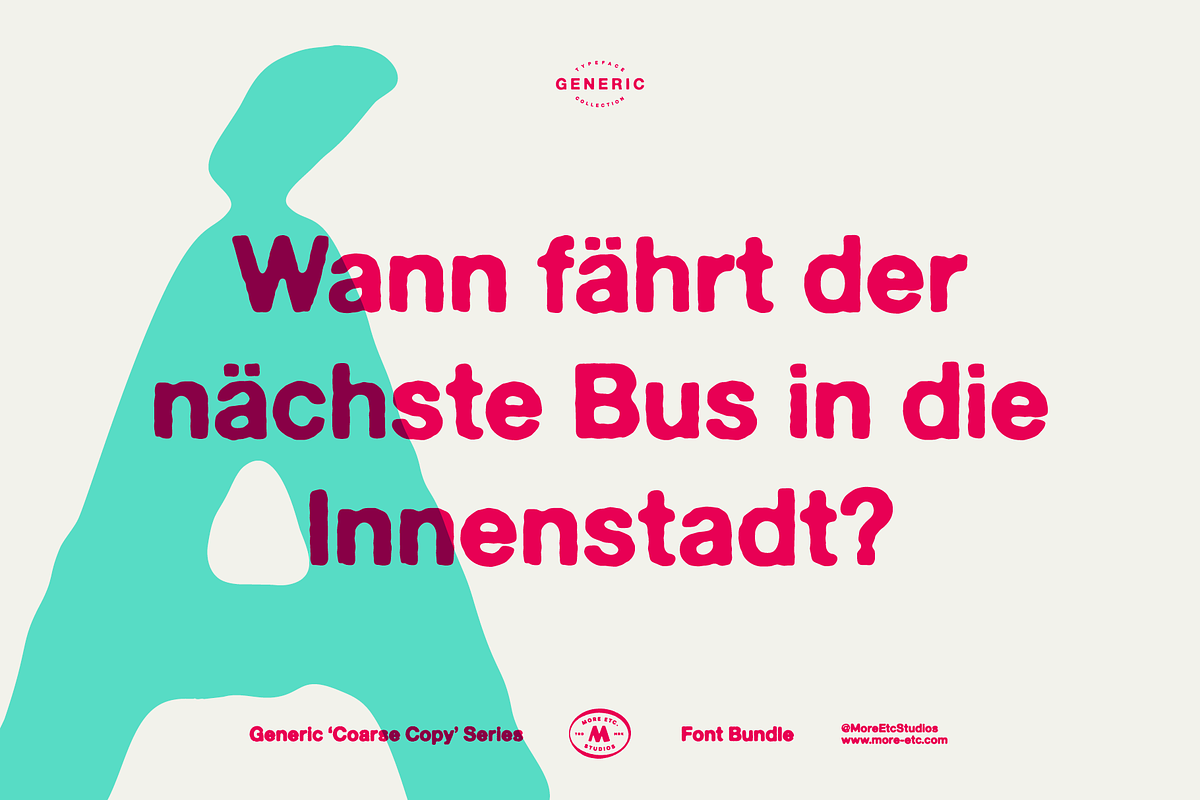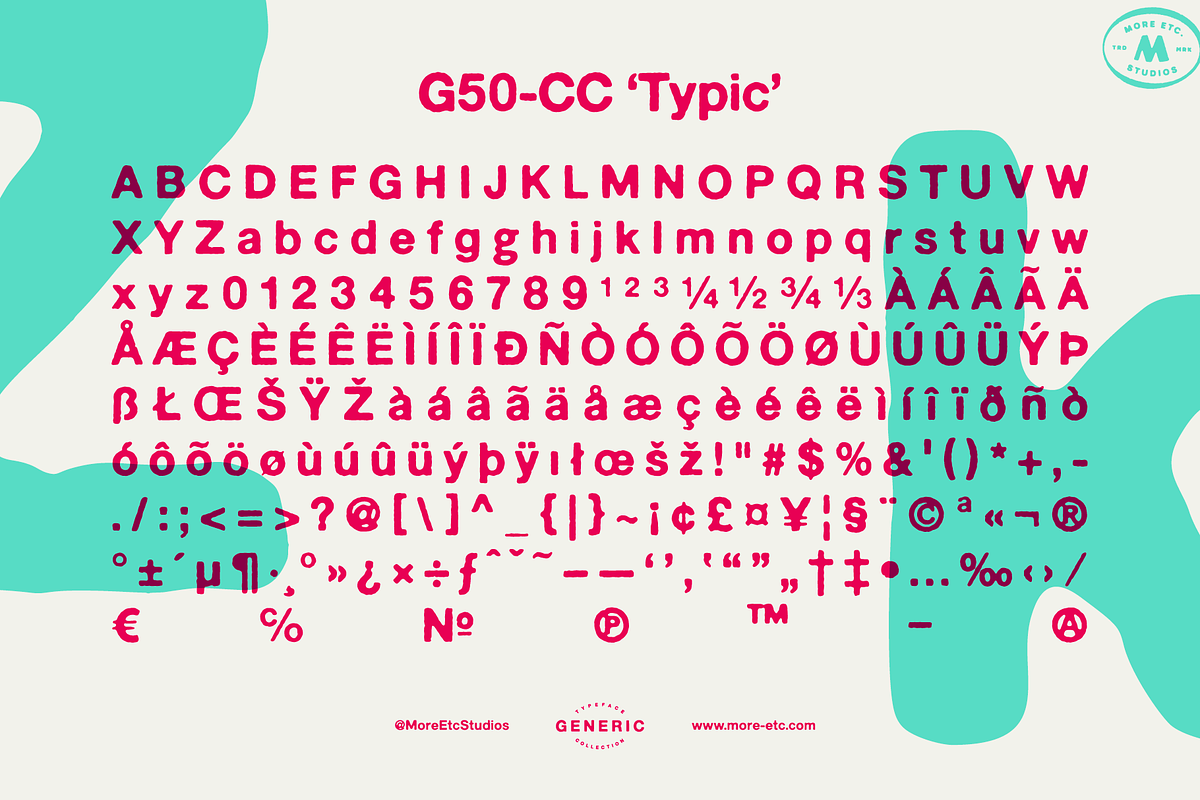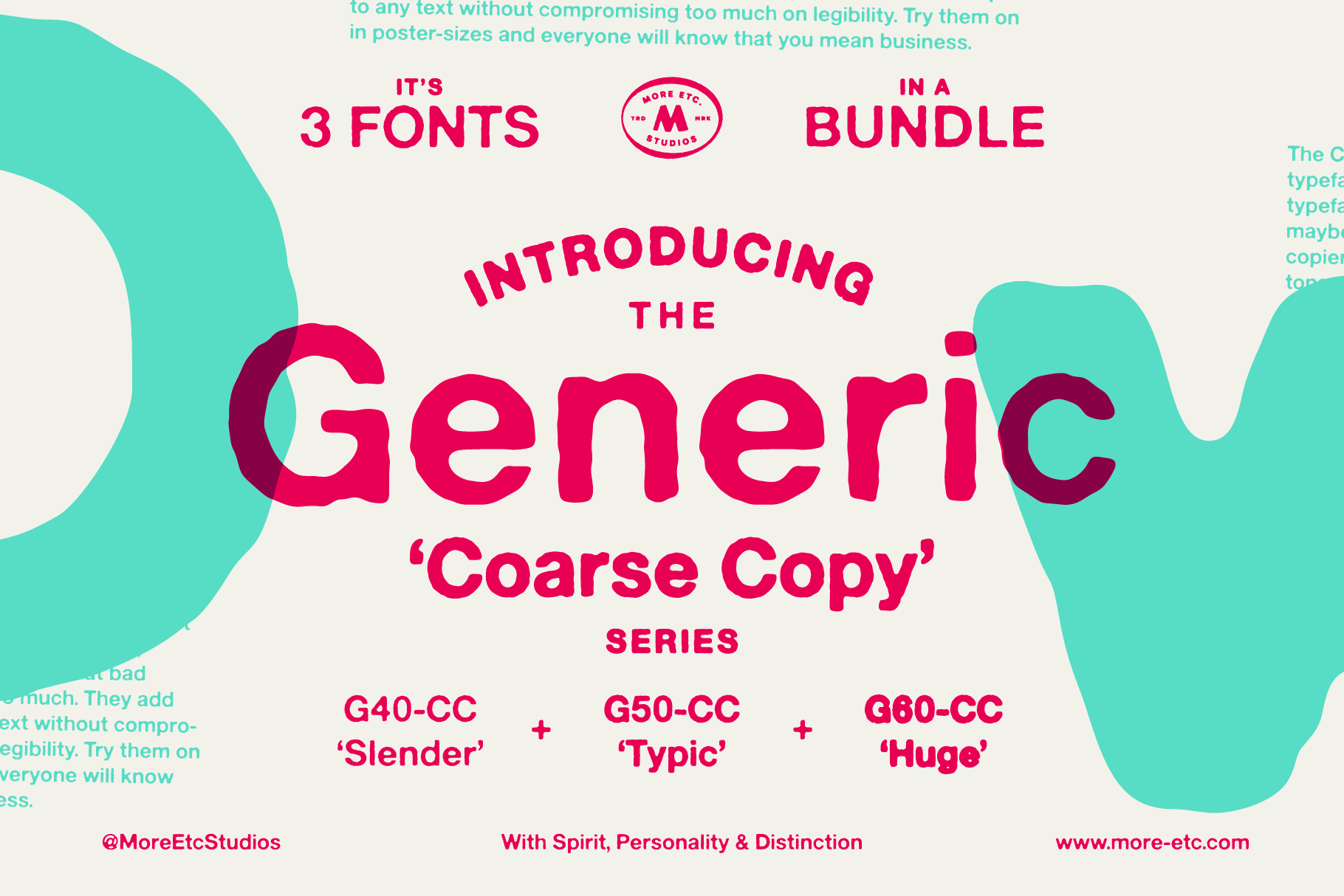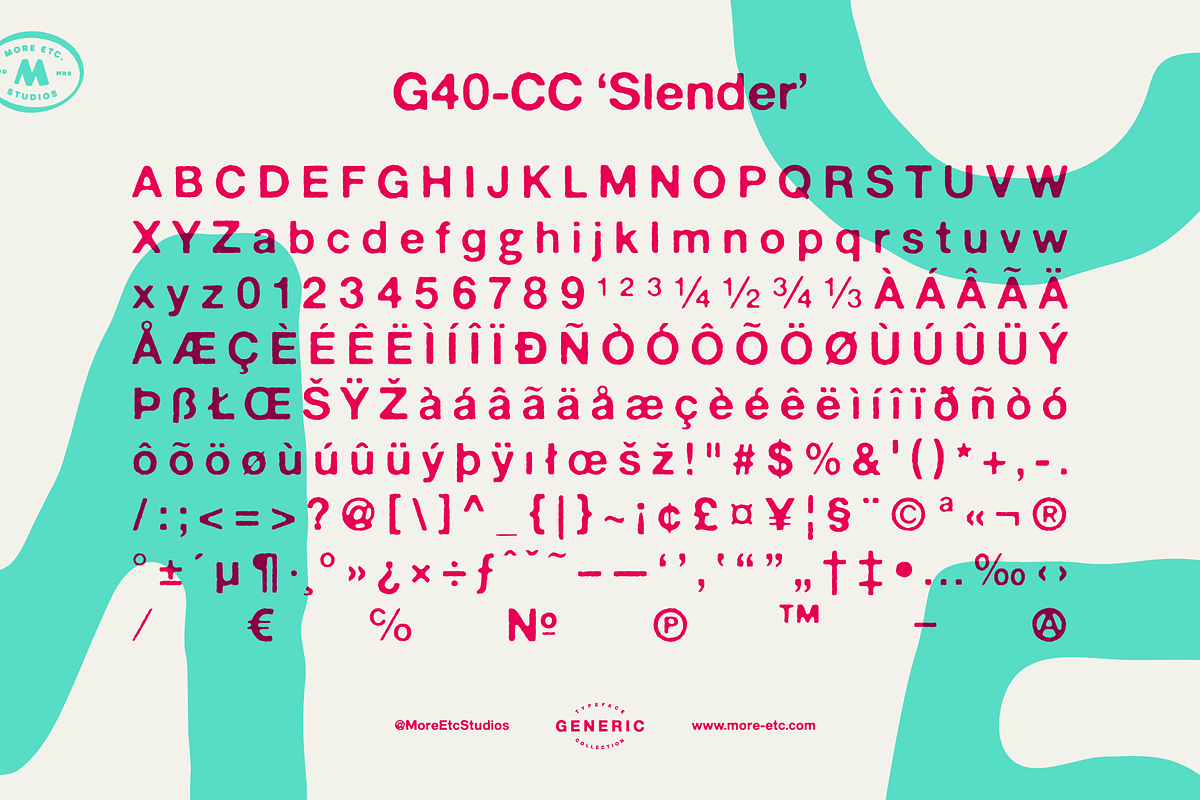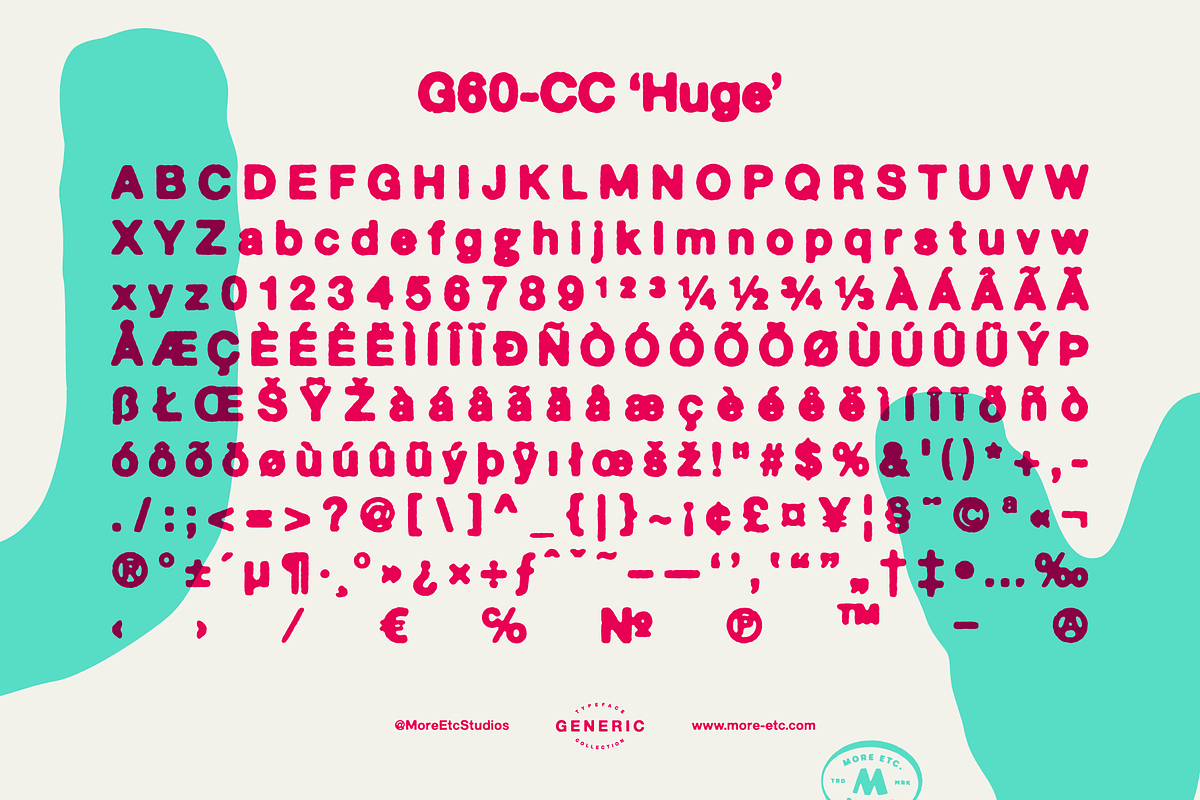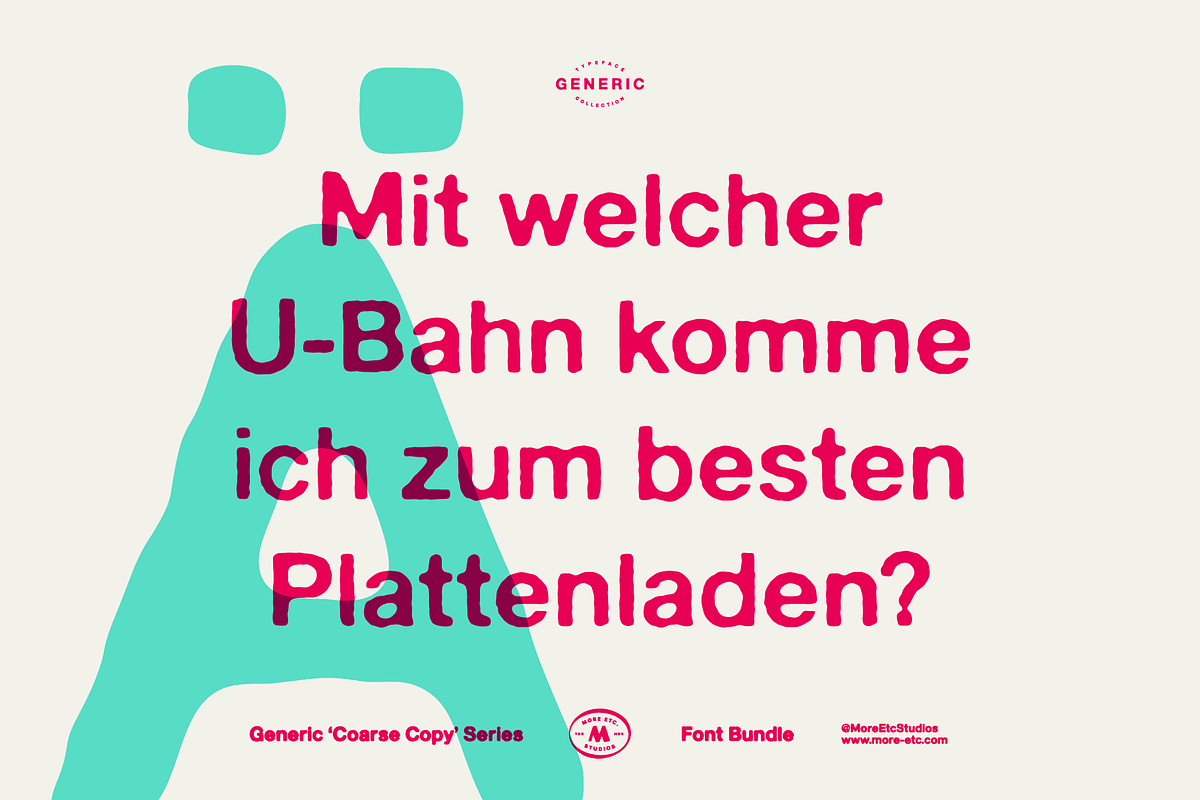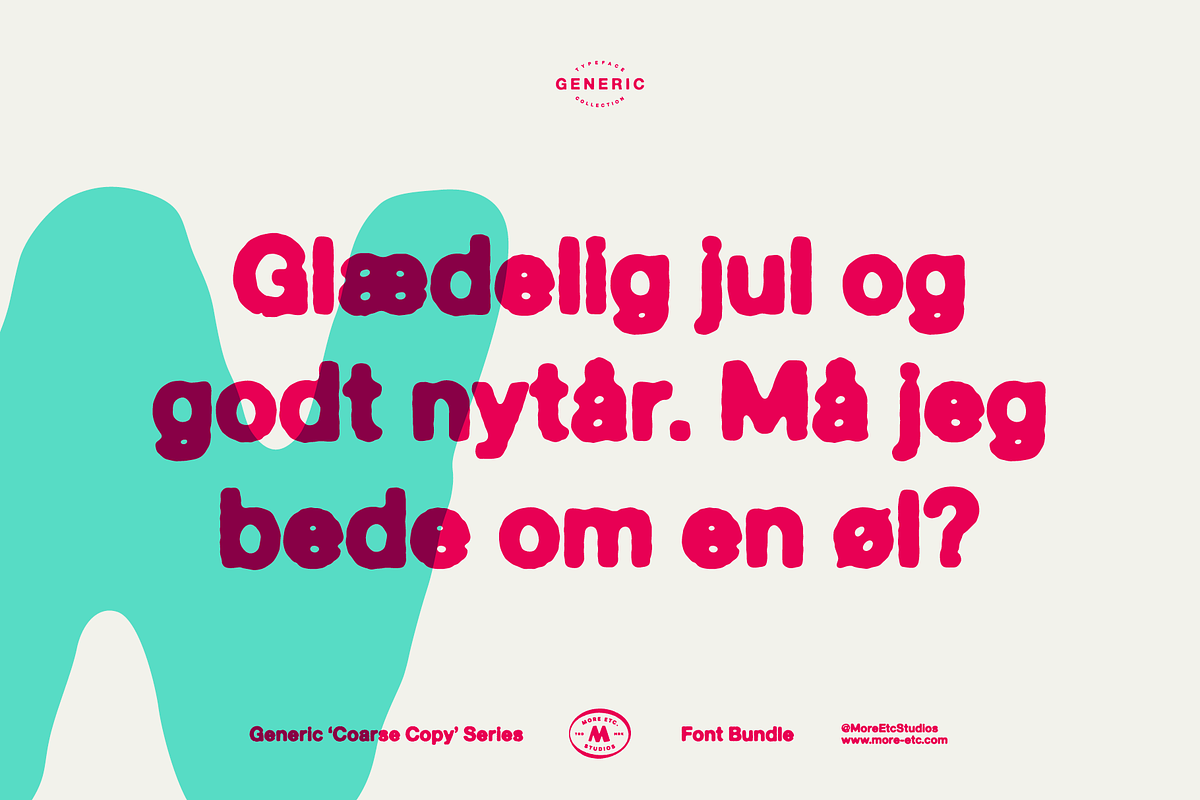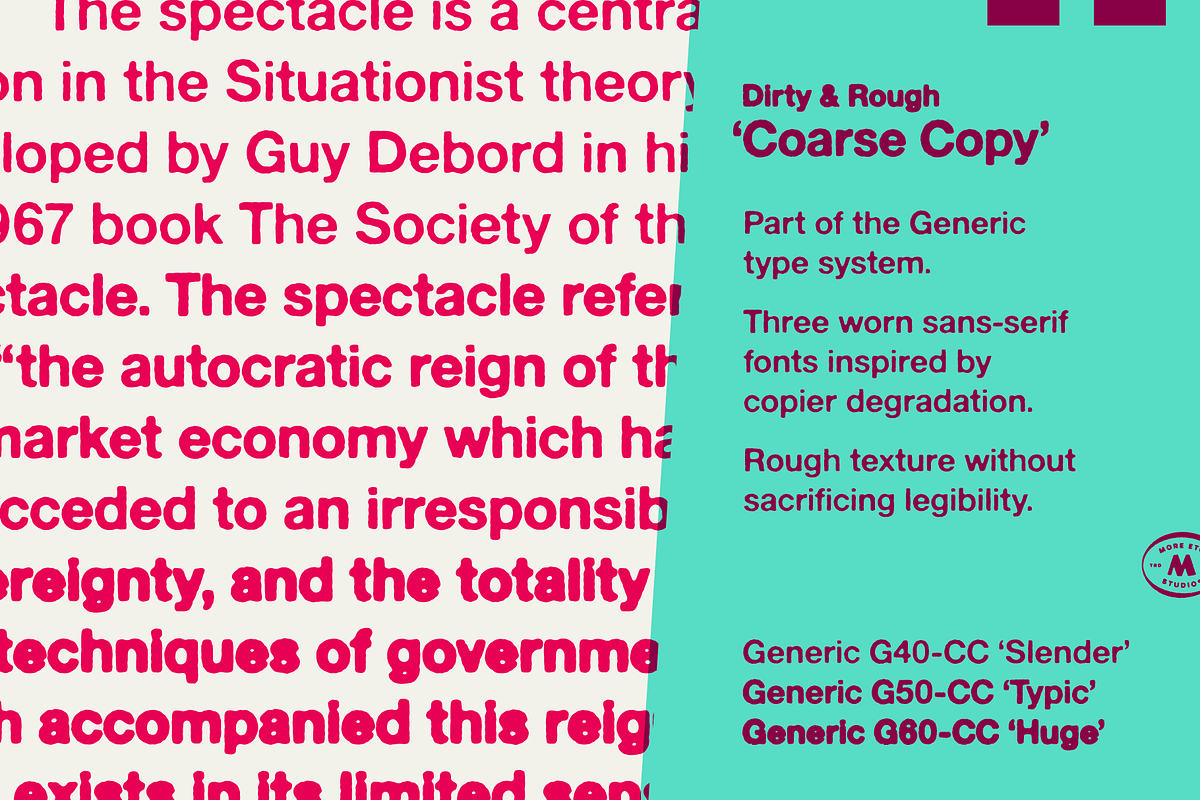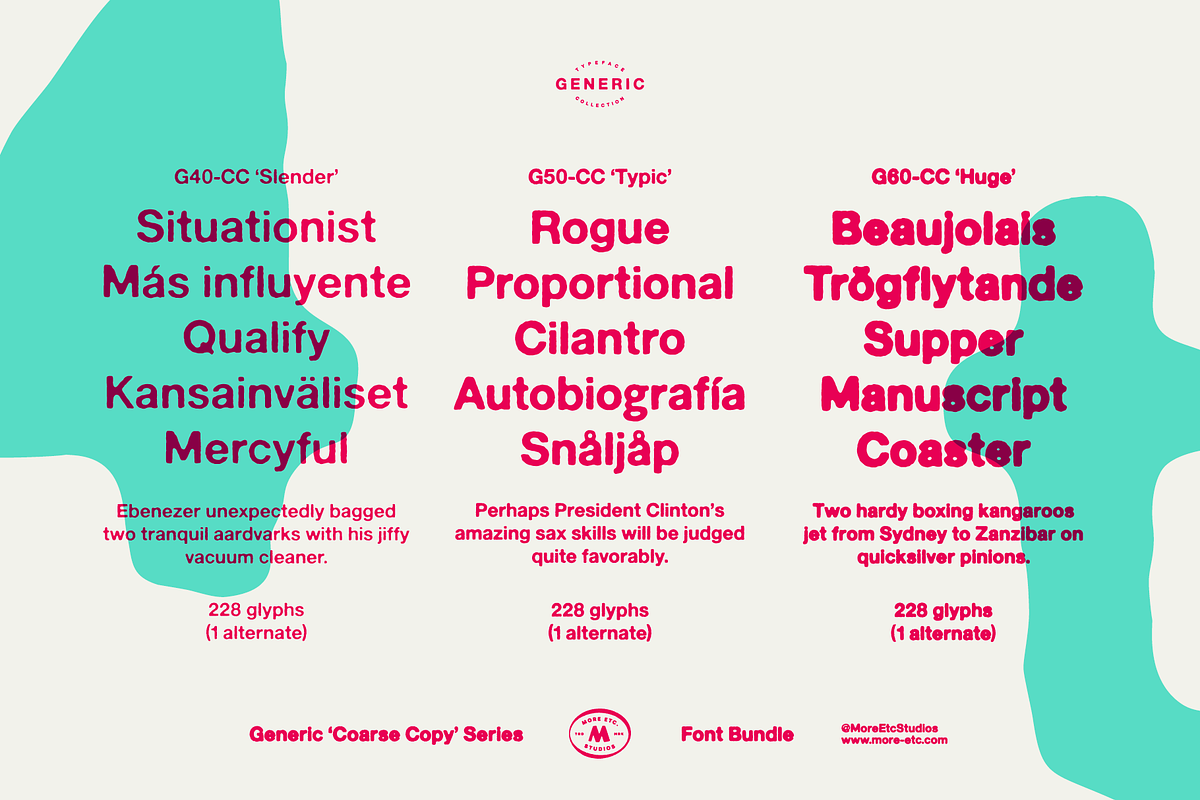
Generic – Coarse Copy (3 Fonts)
Dirty & Rough
Coarse Copy is part of the Generic type system – a collection of analogue-inspired sans-serif display fonts by More Etc.
This series explores worn and textured letterforms inspired by imperfect reproduction and repeated photocopying. Rough in appearance, yet controlled in structure.
Three weights, from slightly underexposed to heavily overexposed.
- G40-CC ‘Slender’
- G50-CC ‘Typic’
- G60-CC ‘Huge’
Each font contains alternate characters (OpenType features).
Suitable for posters, album artwork, expressive branding and bold typographic statements.